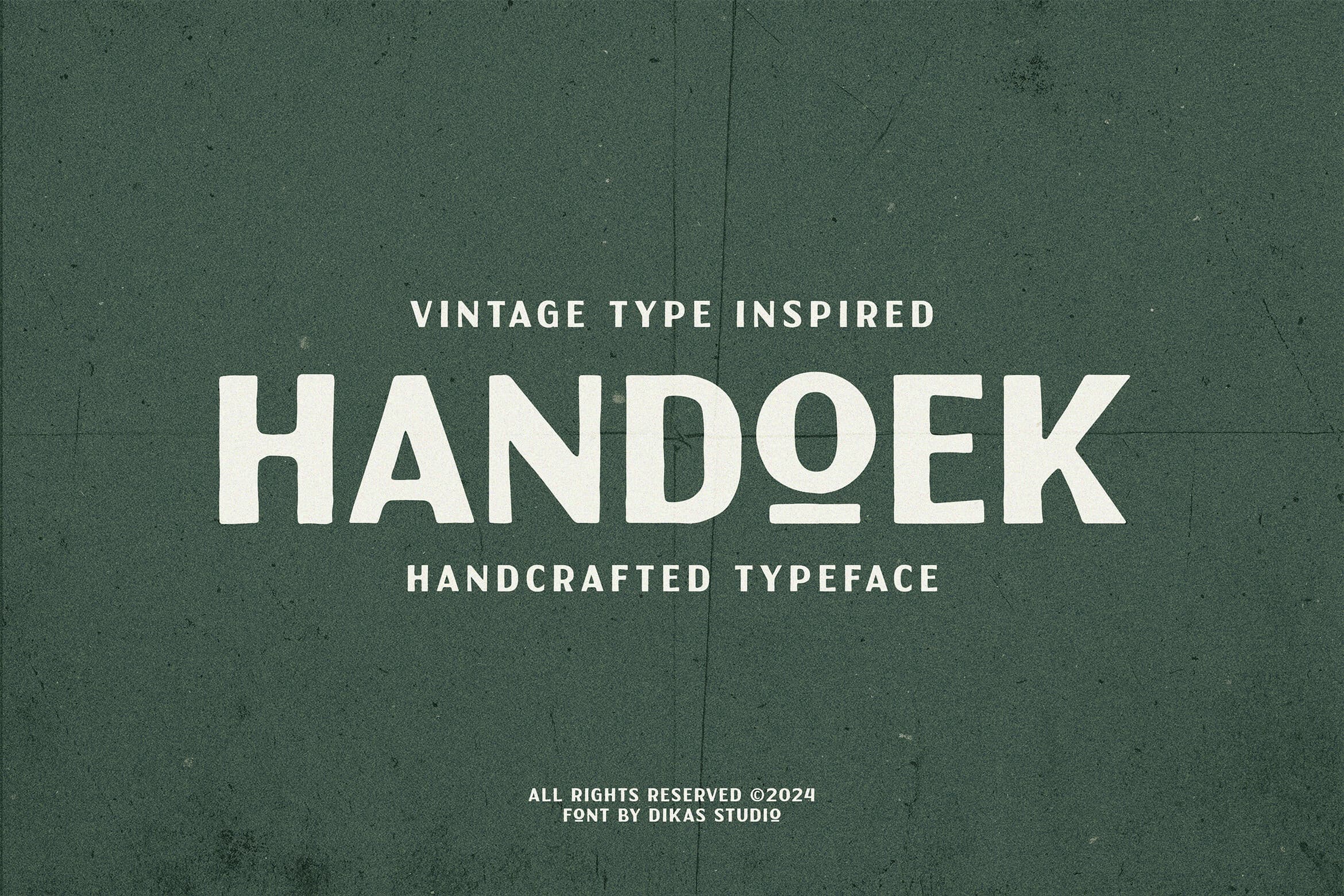
๐ Check out Handoek Font now! Explore this ๐ sans serif fonts and claim your ๐ free download here. Let's start crafting together! ๐ Handoek is a sans-serif font with a vintage soul, crafted with a hand-drawn, rough texture that exudes authenticit...